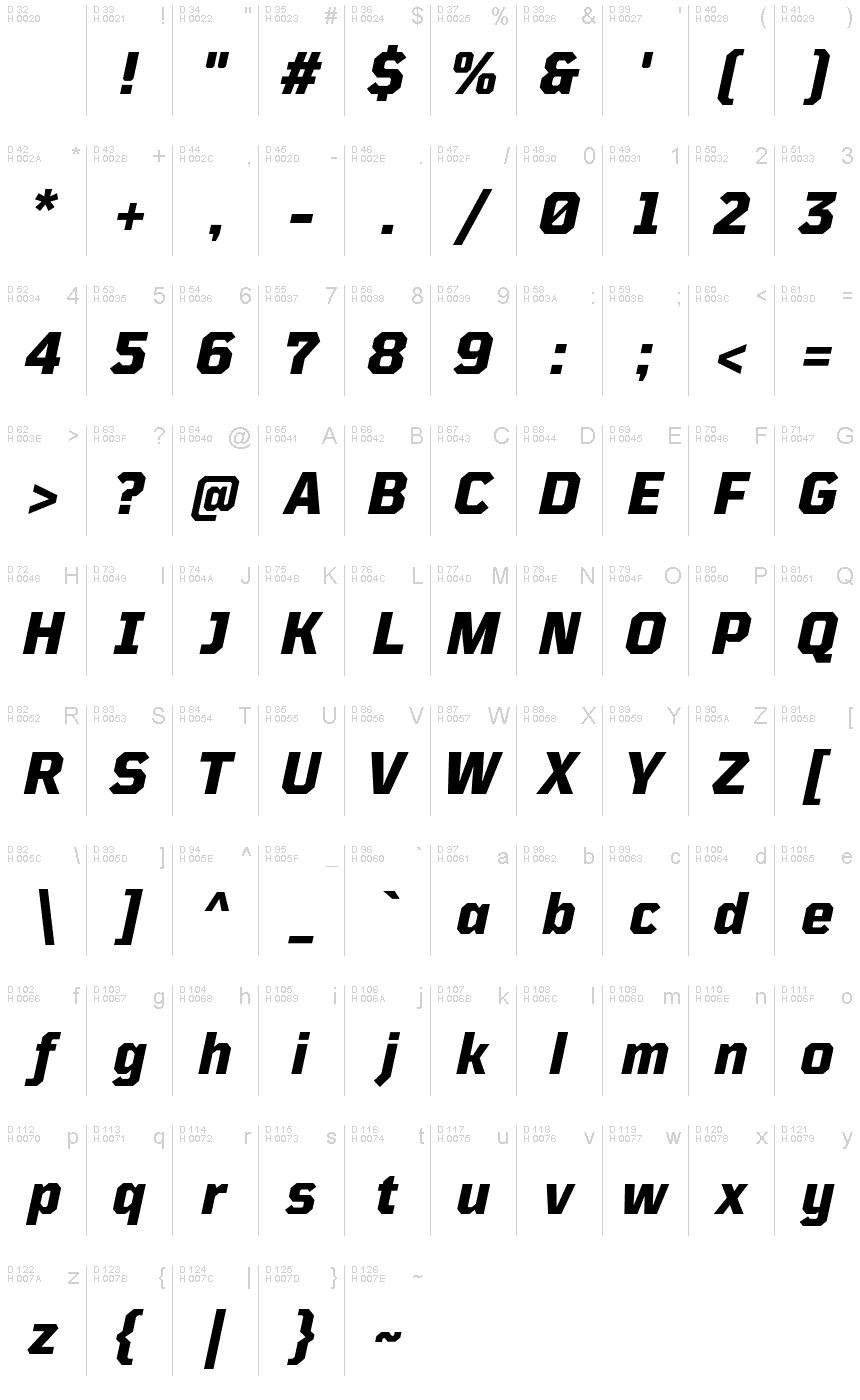
TT Mussels ExtraBold Italic is a stunning display font designed by TypeType. With its sleek and modern techno style, this extra-bold typeface is perfect for projects that demand attention. Its italicized design adds an element of sophistication while maintaining readability, making it an ideal choice for headlines, titles, logos, and branding materials. Whether you're designing a cutting-edge tech startup or creating marketing materials for a high-end fashion brand, TT Mussels ExtraBold Italic will deliver the impact you need to stand out from the crowd. So go ahead and give your next project the bold and daring edge it deserves with this eye-catching font!